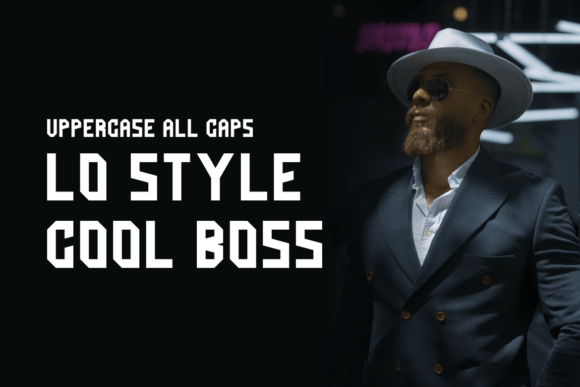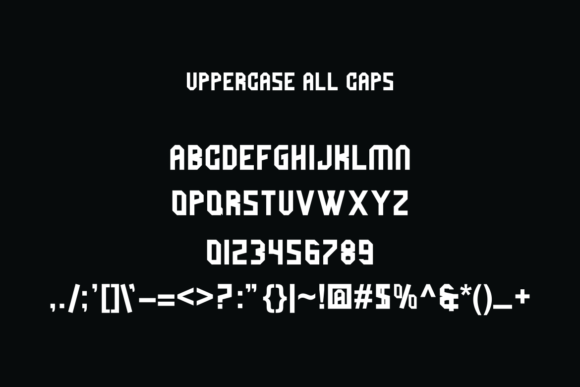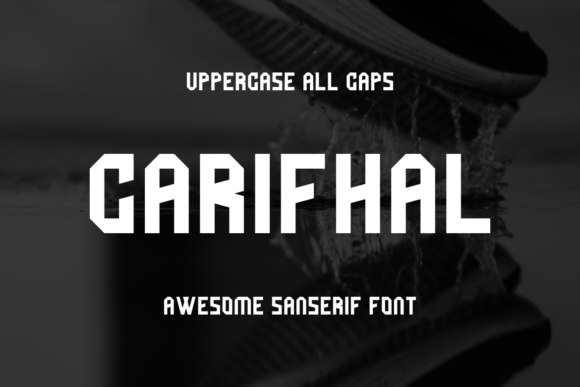
Introducing Carifhal Font: The Modern and Bold Display Font for All Occasions
Are you tired of using the same old fonts for your designs and crafts? Look no further! Carifhal font is a modern and bold display font that is taking the design world by storm. Whether you’re using it for crafts, digital design, presentations, or making greeting cards, this font has the potential to become your favorite go-to font, no matter the occasion!
What Makes Carifhal Font So Special?
Carifhal font is a unique and stylish font that is perfect for making a statement. Its bold and modern design makes it stand out from the crowd, and its versatility makes it suitable for a wide range of applications. Here are just a few reasons why Carifhal font is a must-have for designers and crafters:
- Bold and Eye-Catching: Carifhal font is designed to grab attention. Its bold and chunky letters make it perfect for headlines, titles, and other applications where you want to make a statement.
- Modern and Fresh: Carifhal font has a modern and fresh feel that is perfect for contemporary designs. Its clean lines and sleek curves make it a great choice for digital designs, presentations, and crafts.
- Versatile: Carifhal font is incredibly versatile. It can be used for a wide range of applications, from digital design and presentations to crafts and greeting cards.
- Easily Readable: Despite its bold design, Carifhal font is easily readable, even at small sizes. This makes it perfect for body text, captions, and other applications where readability is important.
Uses for Carifhal Font
So, what can you use Carifhal font for? The possibilities are endless! Here are just a few ideas to get you started:
- Crafts: Carifhal font is perfect for crafters. Use it to add a personal touch to your scrapbooking, card making, and other paper crafts.
- Digital Design: Carifhal font is a great choice for digital designers. Use it to create stunning social media graphics, blog posts, and website headers.
- Presentations: Carifhal font is perfect for presentations. Use it to create eye-catching titles, headings, and bullet points that will engage and inform your audience.
- Greeting Cards: Carifhal font is a great choice for making greeting cards. Use it to create personalized and stylish cards for birthdays, holidays, and other special occasions.
Tips for Using Carifhal Font
Here are a few tips for getting the most out of Carifhal font:
- Use it Boldly: Carifhal font is designed to be bold and eye-catching. Don’t be afraid to use it in large sizes to make a statement.
- Experiment with Colors: Carifhal font looks great in a wide range of colors. Experiment with different colors and combinations to find the one that works best for your design.
- Pair it with Other Fonts: Carifhal font pairs well with a wide range of other fonts. Experiment with different pairings to find the one that works best for your design.
- Use it Consistently: To create a cohesive look, use Carifhal font consistently throughout your design. This will help to create a strong visual identity and make your design more engaging.
In conclusion, Carifhal font is a modern and bold display font that is perfect for designers and crafters. Its versatility, readability, and stylish design make it a great choice for a wide range of applications. Whether you’re using it for crafts, digital design, presentations, or making greeting cards, Carifhal font has the potential to become your favorite go-to font. So why not give it a try and see the difference it can make in your designs?